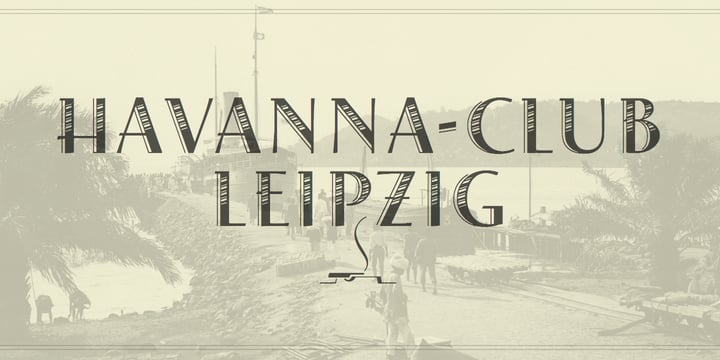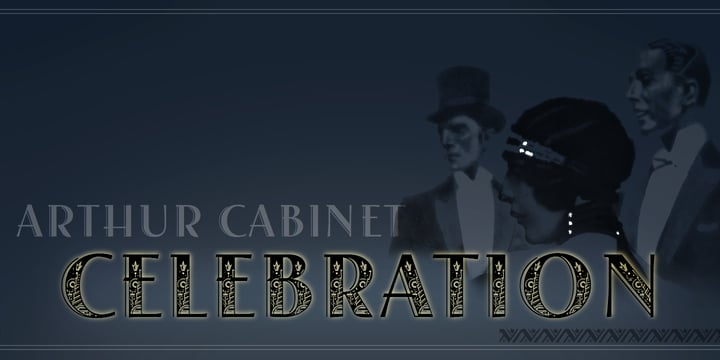
Arthur Cabinet
Arthur Cabinet™ by SIAS
Arthur Cabinet Font Family was designed by Andreas Stötzner and published by SIAS. Arthur Cabinet contains 7 styles and family package options. More about this family
About Arthur Cabinet Font Family
The Arthur Cabinet font family offers a most particular range of seven fancy ornamental fonts in the spirit of the Art Deco era. These fonts celebrate the age of elegance, stylishness and refinement to its very best. They give you a unique tool for exquisite designs. The fonts of this family are derivatives from the Arthur Sans series, which you may also want to have a look at. Use this unique typefaces for distinctive personal stationary, outstanding headlines, captivating brochures and invitations; for marvellous logotypes, wonderful menus, hotel leaflets, exciting ads … for brillant designs. Each Arthur Cabinet font features the same comprehensive Euro-Latin encoding for full language support. Additionally, every font includes a small supplementary set of fine ornaments. – For an even more comprehensive range of Arthur embellishments check out the font Arthur Sans Regular or Arthur Ornaments! Have also a look at the sister fonts of the gorgeous Arthur Sans Family, which will offer you yet another wonderful scope of fascinating typographic possibilities. ________________________________________________________________________________ Tip: Set Sample text (see below) manually to [ABCDE…] to view effectively the fonts most relevant parts! ________________________________________________________________________________